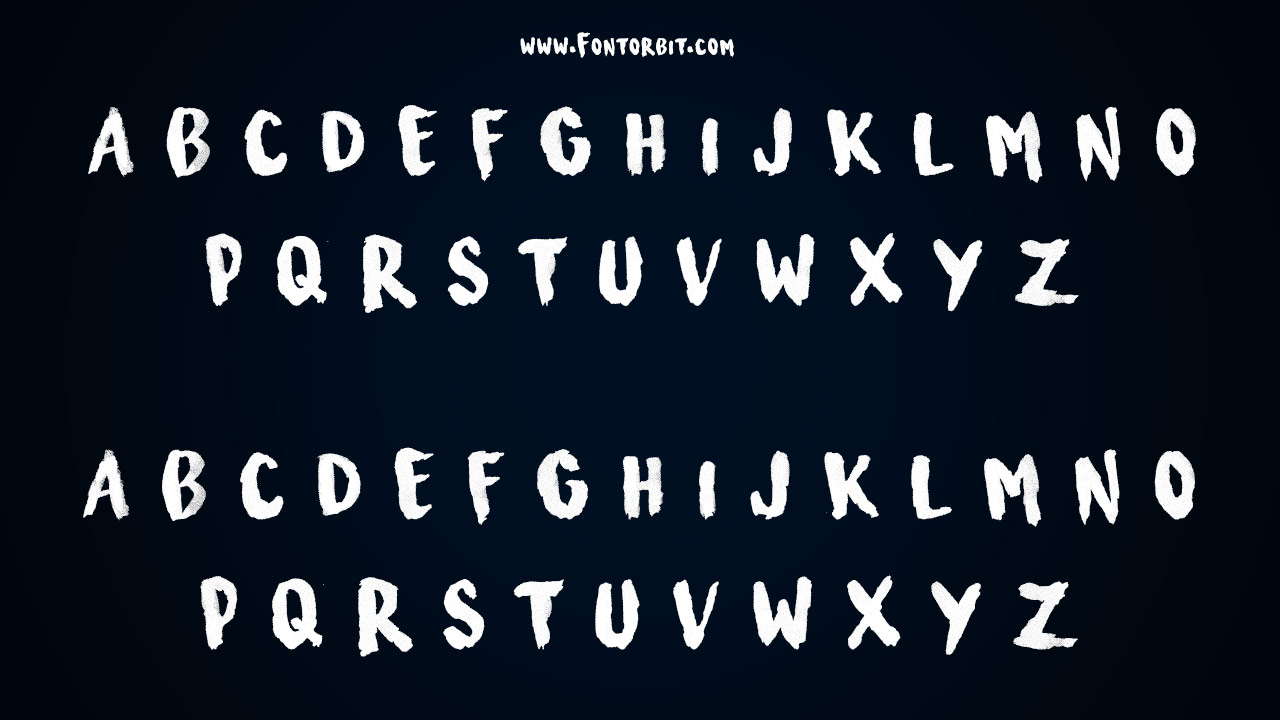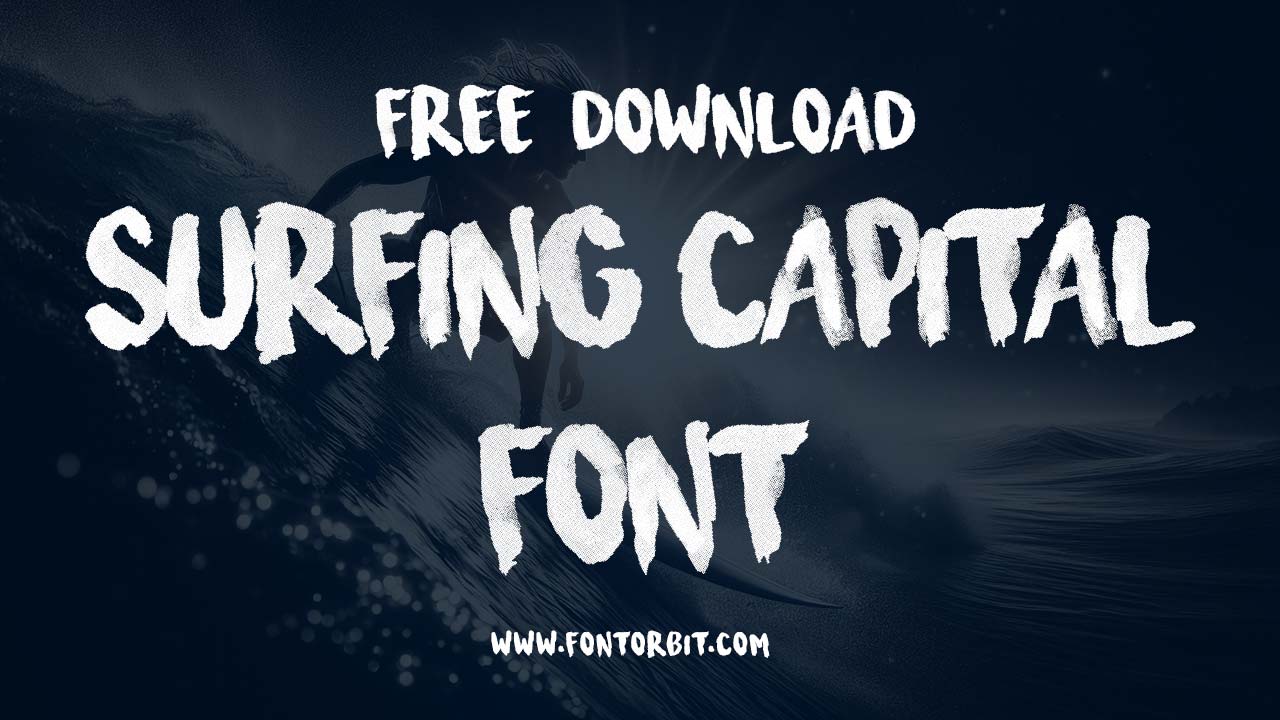
The Surfing Capital font is a lively and dynamic typeface designed by The Branded Quotes. this playful and energetic font belongs to the Surfing Capital family. With its distinct style and modern flair, Surfing Capital captures the essence of coastal fun and adventure, making it a perfect choice for a variety of creative projects.
| Style: | Brush |
Notable Uses Of Surfing Capital
Surfing Capital is ideal for projects that aim to evoke a sense of fun, relaxation, and adventure. It’s often used in:
- Beach-themed graphics and advertisements
- Surfing event posters
- Summer camp brochures
- Casual clothing designs
This font is perfect for designs that require a casual and inviting atmosphere. Consider using Surfing Capital for:
- Outdoor event promotions
- Youth-oriented media
- Creative social media posts
Surfing Capital is a vibrant and versatile font that brings a touch of the beach to any design. Whether you’re creating a summer event flyer or a casual brand identity, this font is sure to make your project stand out.